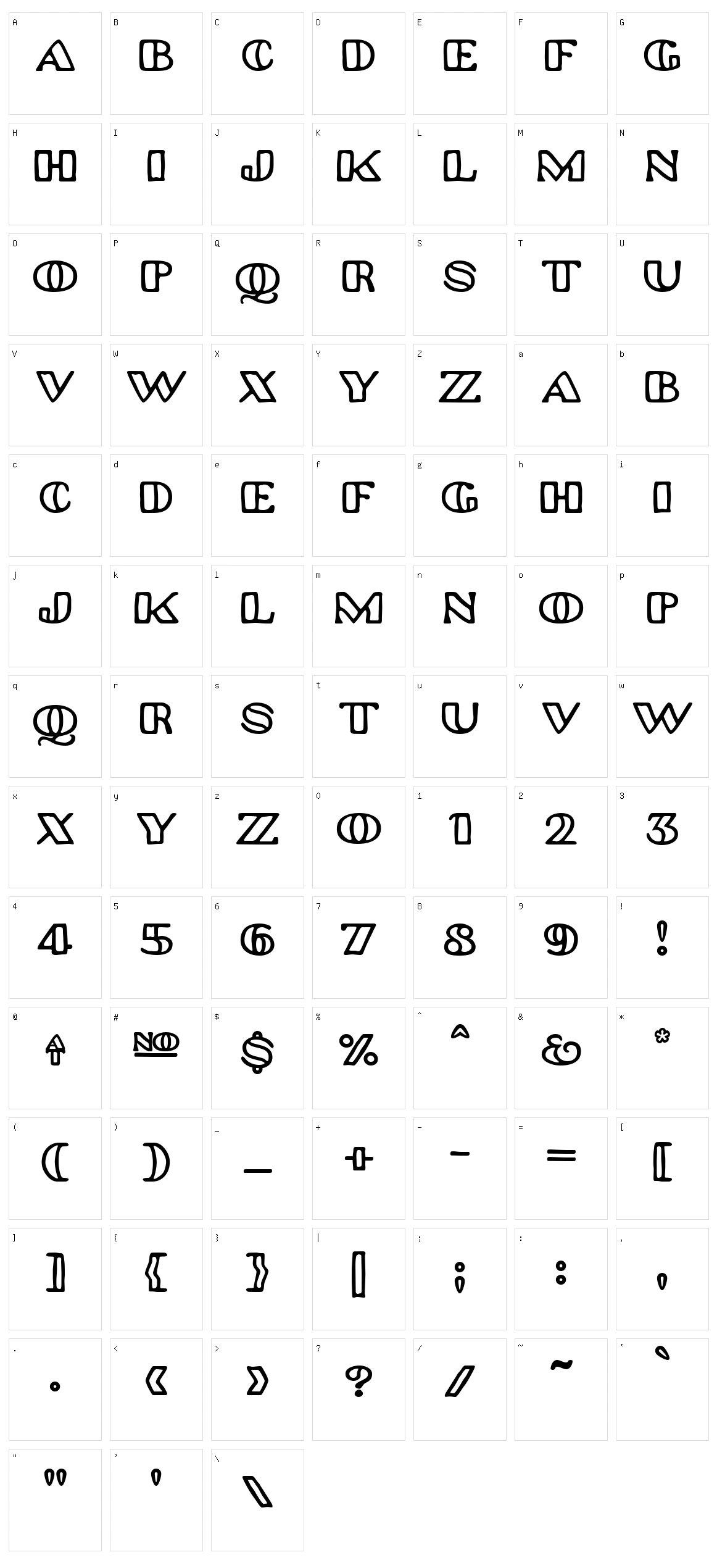
"Platinum Hub Caps" is the 33rd free font from Rich Gast.
It was originally created on 07/28/99.
The character set includes:
Upper and lower case letters (both the same) and numbers.
Most punctuation, and international characters.
About the name: If you're a long time Pink Floyd fan, you may already
recognize the origin. It's from Roger Waters' "Radio KAOS" CD, the
song named "The Powers That Be". The only significance is that this
font is all CAPS and I like the song. So be it.